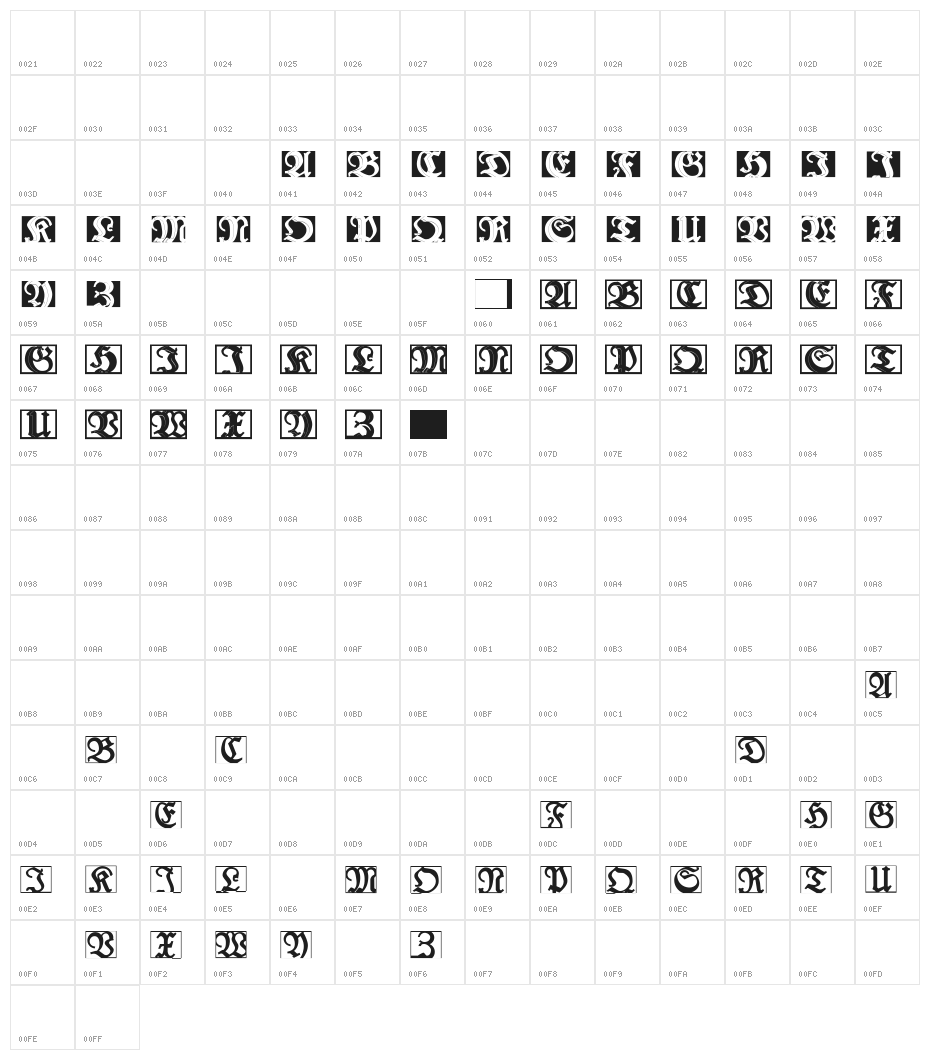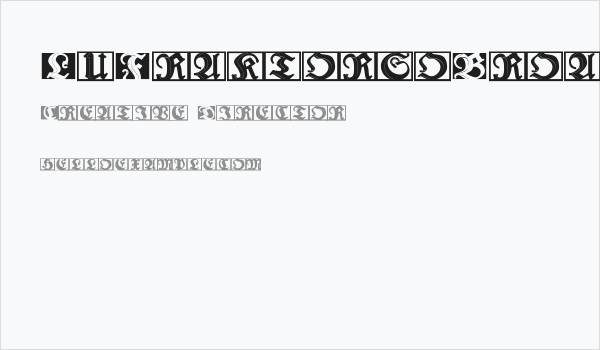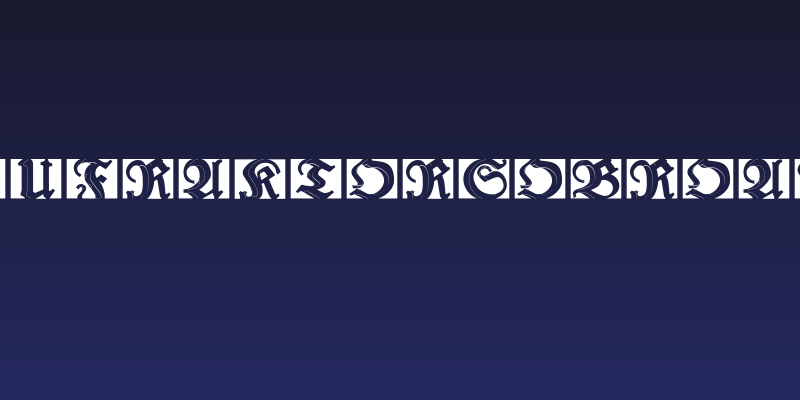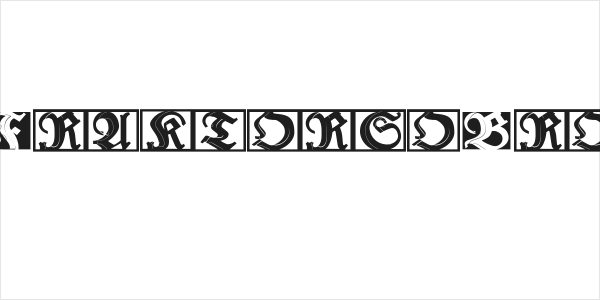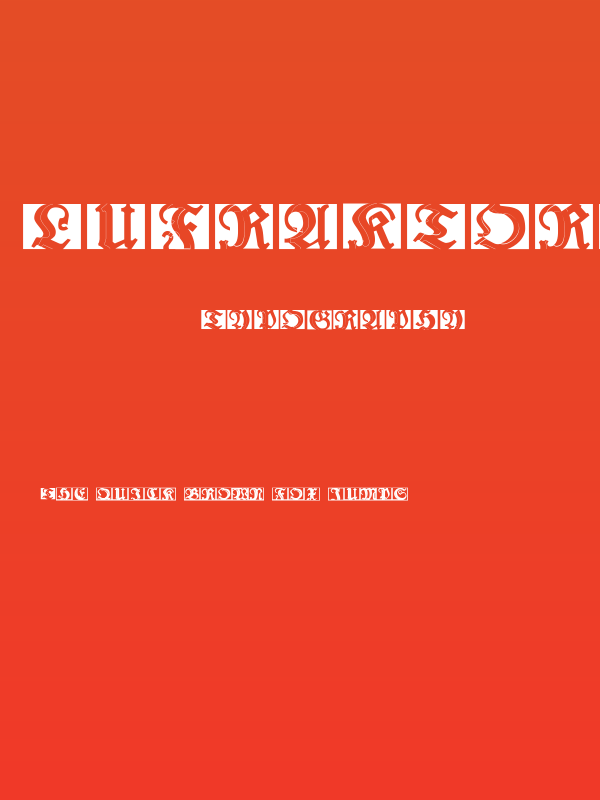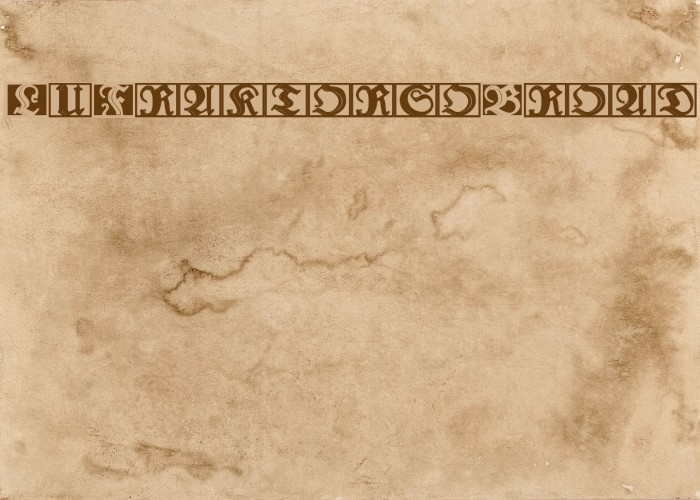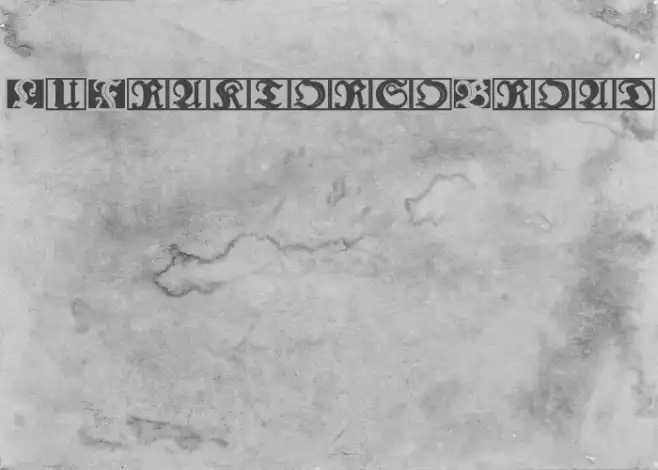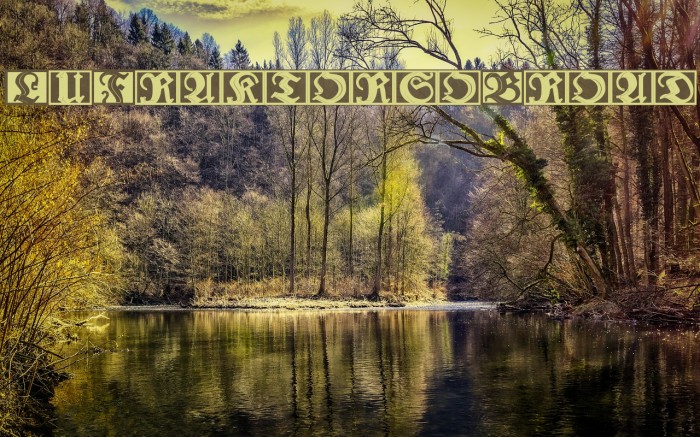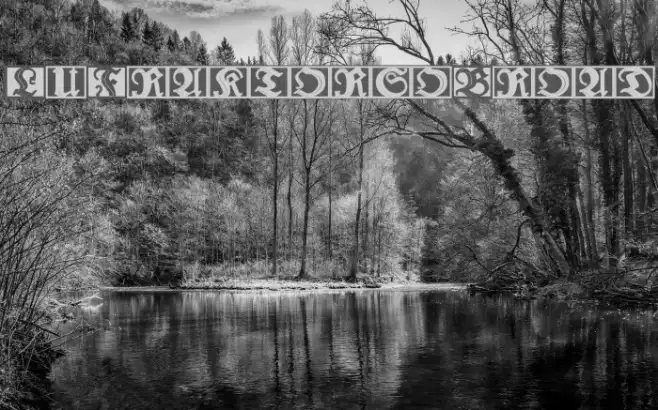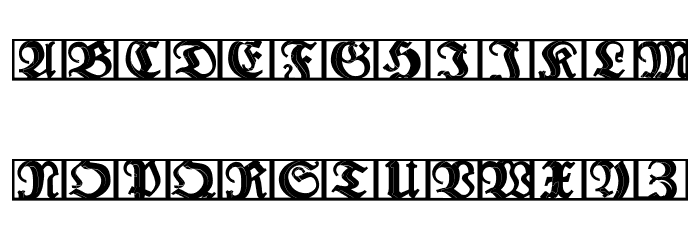
LuFraktorsoBroad Font
LuFraktorsoBroad Description
This font exhibits a bold and intricate design, reminiscent of traditional Blackletter styles. Each character is enclosed in a square, adding a unique boxed appearance that enhances its decorative nature. The letters are highly stylized with elaborate curves and sharp angles, creating a sense of historical elegance and formality. The font's ornate details make it suitable for projects that require a touch of sophistication and classic appeal. Its distinct style is ideal for creating impactful visual statements, especially in contexts where a vintage or medieval aesthetic is desired.
| Proposed Projects | Ideal for historical documents, certificates, invitations, and branding that requires a vintage or medieval theme. |